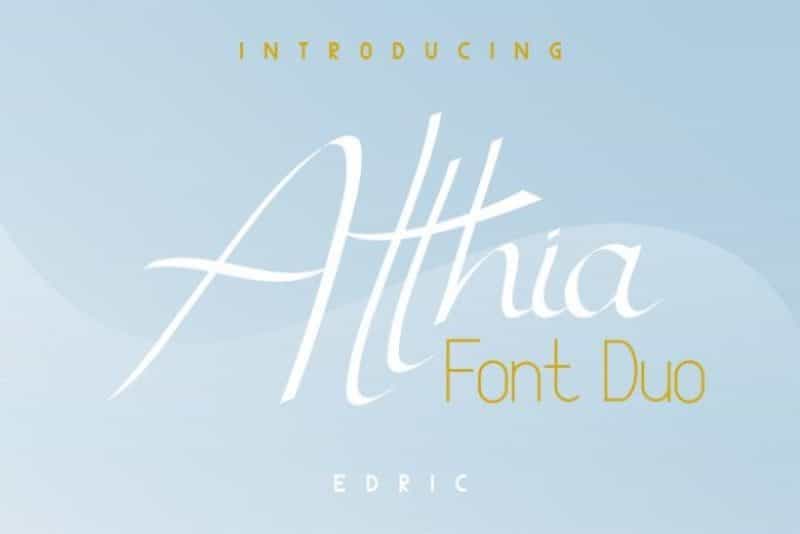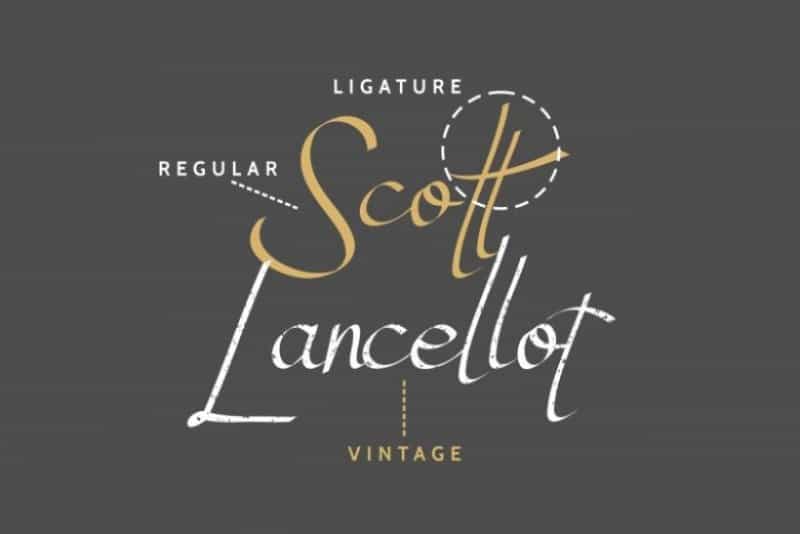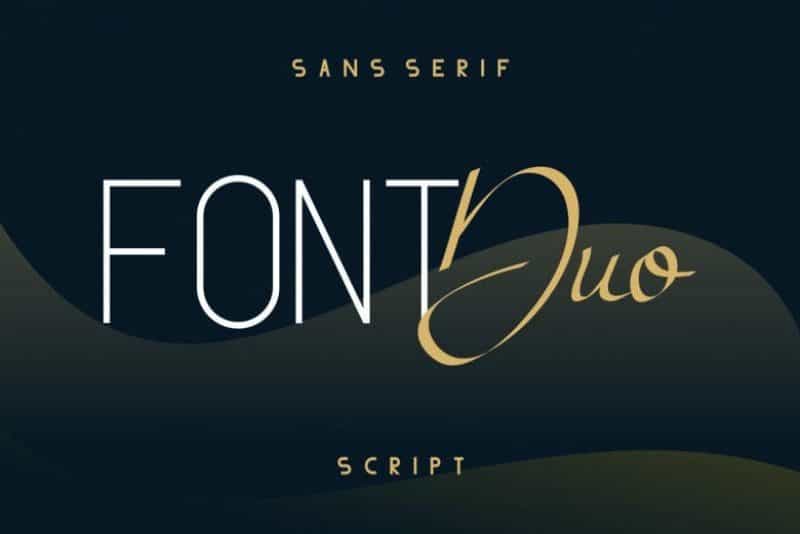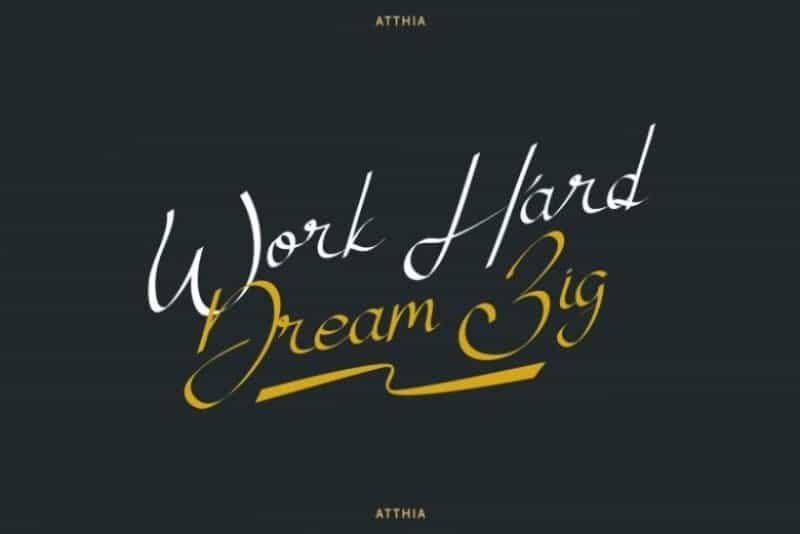
Hi Everyone!Introducing our newest font : Atthia!This is a new font family with 3 styles : Classic, Old-Style, and Sans Serif, these are the three main typefaces. This is a modern script calligraphy font. It has a clean, polished, and modern design.